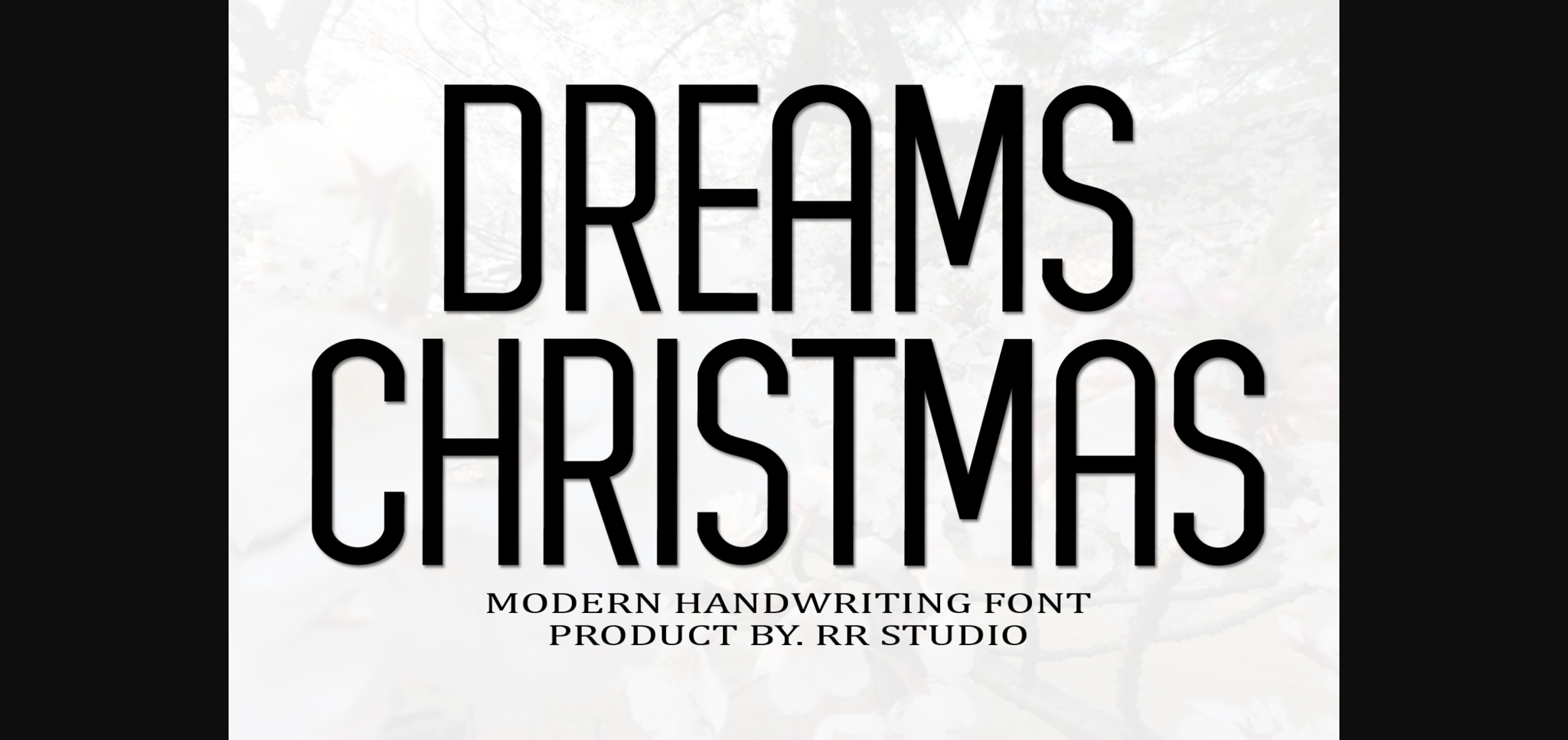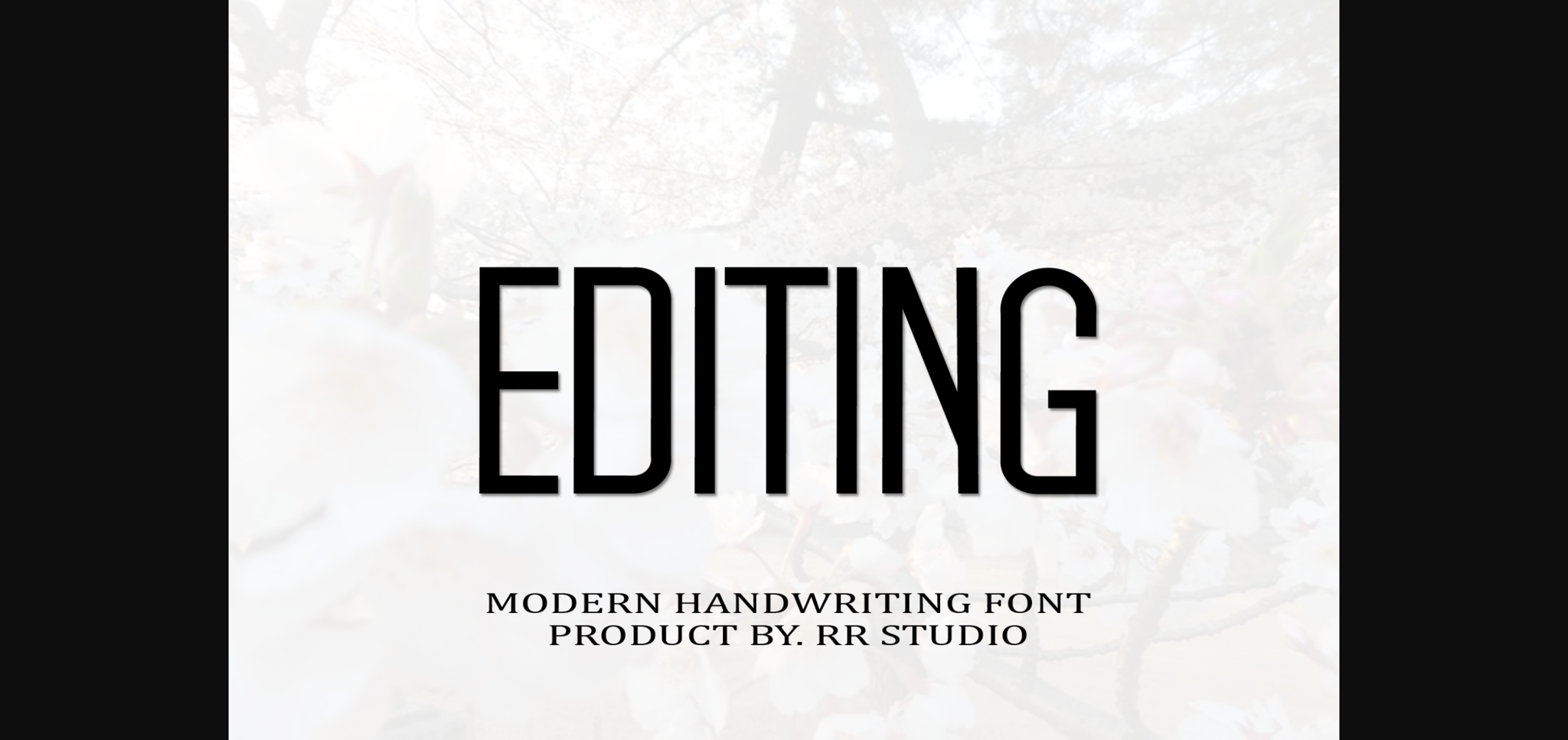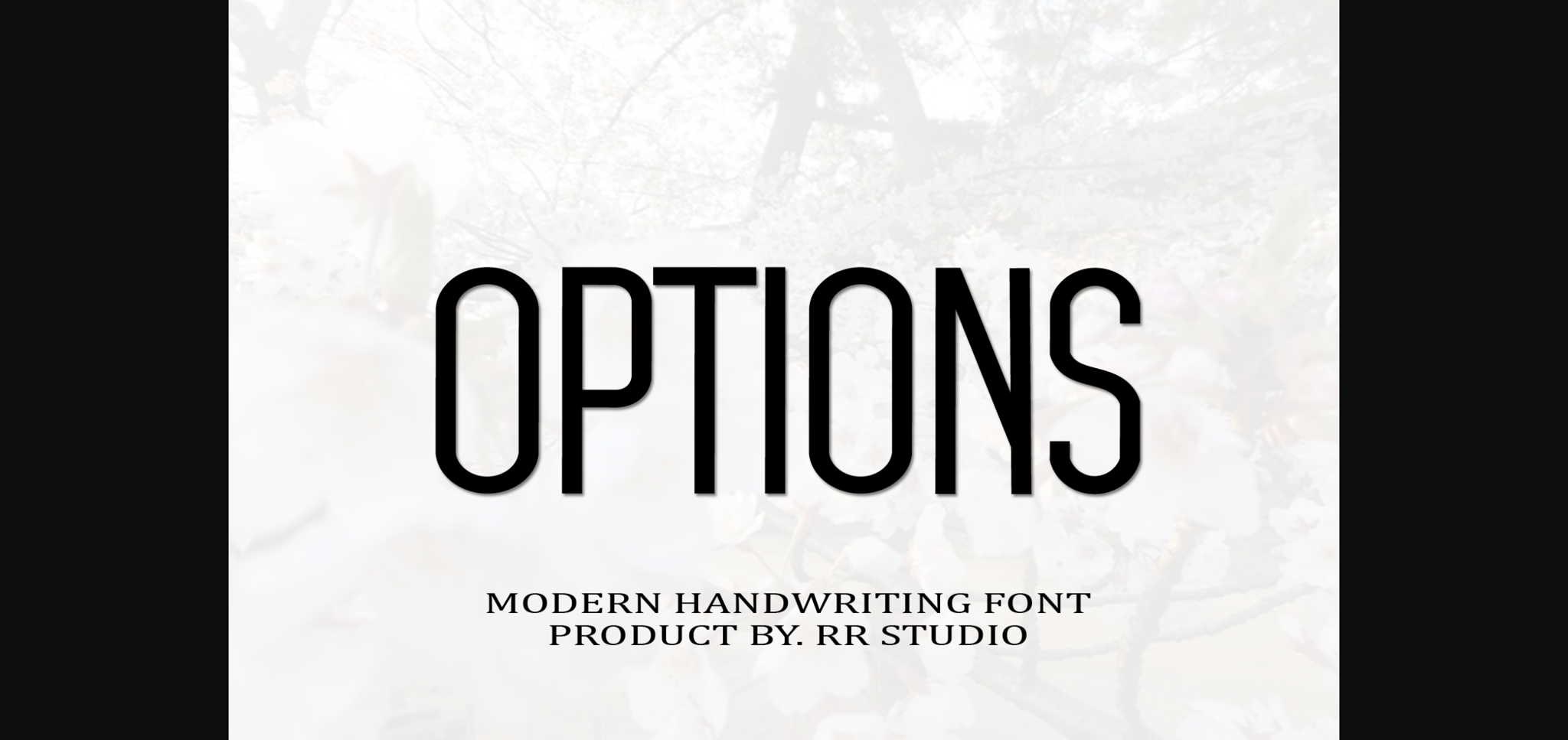
About Dreams Christmas Font
Dreams Christmas is a classic and simple sans serif font, created in a random and free style.
It is suitable for logotype, headline font, in corporate identity, brand identity, apparel industry, poster, music, movie, game, magazine, book, comic, cartoon, YouTube, Instagram, website, or any of your creative design projects.